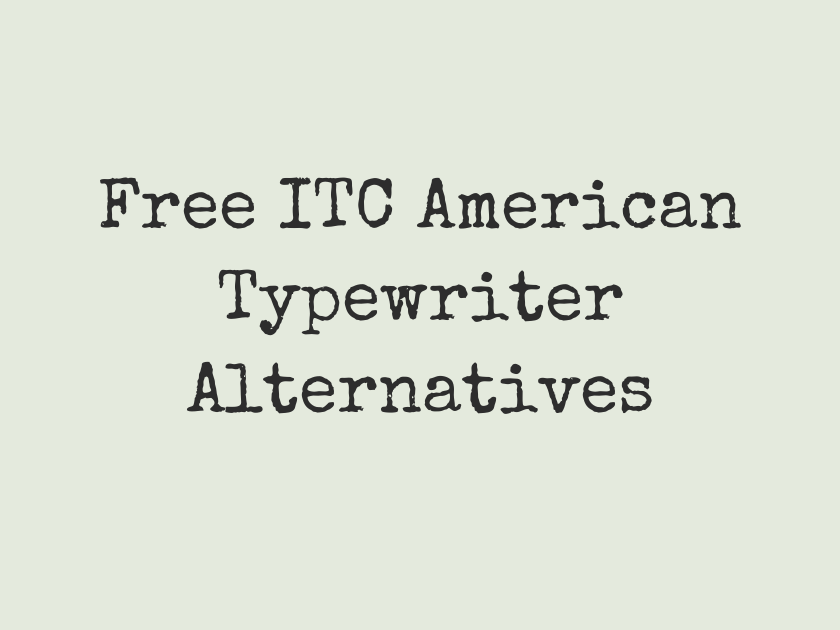
15 Best Free Fonts Alternatives to ITC American Typewriter
The rounded slabs and warm, businesslike rhythm of ITC American Typewriter made it a go-to for anything that wanted to feel handmade, official, or nostalgically analog: manuscript pages, vintage branding, personal letters rendered in pixels. Because it lives behind Adobe and ITC licensing, most web projects need a free stand-in that keeps that lived-in, ribbon-and-platen character without the cost. Google Fonts has a strong bench of genuine typewriter fonts and rounded slab serifs that capture the same mood, whether you want the literal clack of a manual machine or just its friendly, letterpress-adjacent warmth.
1. Special Elite
Dearest reader, this letter was typed by hand
Special Elite is the closest thing Google Fonts has to a battered Underwood in a dusty attic. Its ink-splotched strokes and uneven baseline give it instant vintage authority, which makes it a favorite for detective-story branding, ransom-note effects, and anything that wants to look freshly pulled from a case file. It gets muddy at small sizes, so save it for headlines, stamps, and short bursts of text rather than paragraphs.
2. Courier Prime
Draft one, page one, scene one, action
Built specifically to fix the spacing and legibility quirks of generic Courier clones, Courier Prime has become the standard font for screenwriters and script software. It is clean, monospaced, and genuinely pleasant to read in long form, which sets it apart from noisier typewriter fonts. Pair it with a humanist sans in the interface chrome and let Courier Prime carry any body copy that needs to feel like a manuscript.
3. Cutive Mono
Report typed on an old manual machine
Cutive Mono leans into the slightly wobbly, ink-heavy look of real typewriter keys without the heavy distressing of grungier options. It reads as retro but composed, which makes it useful for order confirmations, receipts, or any interface detail that wants a nod to analog record-keeping.
4. Cutive
Personal correspondence, typed with great care
Where its monospaced sibling feels mechanical, Cutive is a proportionally spaced serif with the same typewriter DNA, so lines flow more naturally and feel closer to how American Typewriter behaves in running text. It suits invitations, personal stationery, and editorial pull quotes that want warmth over uniformity.
5. Arvo
Bold notices, typed and stamped for approval
Arvo is a geometric slab serif with confident, evenly weighted strokes that hold up beautifully at large display sizes. It shares American Typewriter’s sturdy, blocky presence without any of the typewriter grime, making it a solid pick for headlines on a site that wants nostalgia filtered through a cleaner, more modern lens.
6. Roboto Slab
Official memo, formatted and ready to send
As the slab-serif companion to Roboto, this one brings a contemporary, well-engineered feel to a category that can otherwise skew twee. It works hard across UI and editorial contexts alike, and its wide range of weights means you can go from a light caption to a heavy headline without switching families.
7. Bitter
Notes from the editor, typed late at night
Bitter was designed for on-screen reading, so its slab serifs are calm and sturdy rather than decorative, with generous spacing that keeps paragraphs comfortable at body-text sizes. It is a dependable choice when you want the structural echo of American Typewriter in long-form web copy, not just headlines.
8. Zilla Slab
Field notes typed up and filed away
Zilla Slab has a slightly warmer, more humanist feel than many slab serifs, with subtle curves that keep it from feeling stiff. It pairs naturally with sans-serif interfaces and does well in blog posts, documentation, and anywhere you want a typewriter-adjacent voice without literal typewriter texture.
9. Rokkitt
Announcing new arrivals, typed and posted
Rokkitt’s rounded terminals and generous curves give it a friendlier, more rounded silhouette than most slab serifs, echoing the approachable roundness that made American Typewriter so popular for consumer branding. At bold weights it makes an excellent display font for packaging, posters, or retro-leaning logos.
10. Aleo
Signed, sealed, and typed for the record
Aleo was designed as a companion to Lato, and it carries that same restrained, professional temperament into slab-serif territory. It is a safe, versatile choice for reports, resumes, or editorial sites that want a whisper of typewriter formality without drawing attention to itself.
11. Josefin Slab
Vintage classifieds, typed in a small office
Josefin Slab pulls its proportions from 1920s geometric type design, giving it a slightly art deco flavor alongside its slab-serif structure. It suits vintage-inspired branding, wedding stationery, and editorial headers that want period charm rather than strict typewriter realism.
12. Alfa Slab One
EXTRA! TYPED NEWS FROM THE PRESSROOM
Monospaced options like Courier Prime, IBM Plex Mono, and Overpass Mono pair naturally with a plain sans serif for interface labels, keeping the vintage note in the copy rather than the chrome.
Any of these free Google Fonts can stand in for ITC American Typewriter without licensing headaches, and mixing a display-strength option with a body-friendly slab serif usually gets closest to the original’s balance of nostalgia and readability.